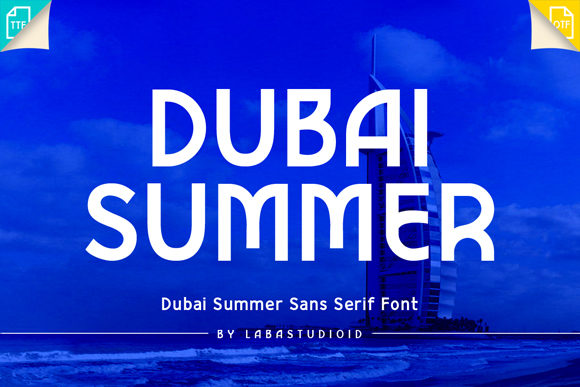
Prepare to be entranced by Dubai Summer, a font family that embodies elegance and sophistication. Its sans serif structure exudes a timeless charm, making it the perfect choice for crafting signatures that leave a lasting impression. Step into a world of refined aesthetics and discover the allure of Dubai Summer.
With its meticulously crafted letterforms, Dubai Summer lends an air of distinction to any signature. Its clean lines and balanced proportions create a visual harmony that captures the eye. Experience the joy of crafting signatures that reflect your unique personality, adding a touch of elegance to every written word.
Dubai Summer's versatility knows no bounds. Whether you're designing invitations for a special occasion, creating personalized stationery, or adding a touch of flair to your digital correspondence, this font family rises to the challenge. Its adaptability makes it a valuable asset for designers and creative professionals alike.
Let Dubai Summer be your creative companion, guiding you through the world of signature design. Its user-friendly nature makes it accessible to both seasoned designers and those just starting their creative journey. Embrace the endless possibilities and unlock your artistic potential with Dubai Summer.
Step into the realm of elegance and let Dubai Summer elevate your designs. Its timeless appeal and versatility make it an indispensable tool for creating signatures that stand the test of time. Experience the joy of artistic expression and let your creativity flourish with this exceptional font family.
Dubai Summer awaits you, ready to transform your signatures into works of art. Its captivating beauty and boundless possibilities will leave you spellbound. Embrace the allure of Dubai Summer and embark on a creative journey like no other.